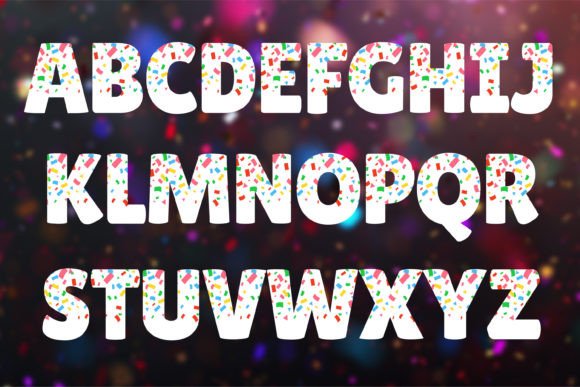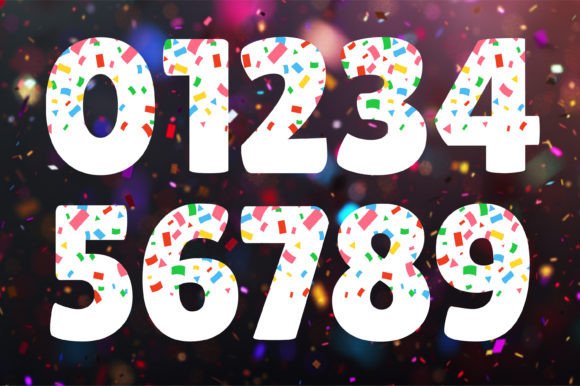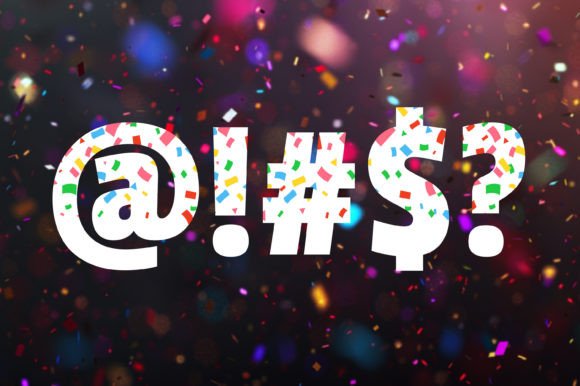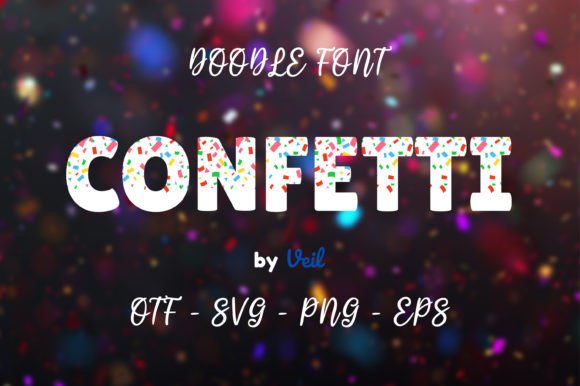
Introducing Confetti Font: Add a Playful Touch to Your Creative Projects
Are you looking for a font that can add a playful or artistic feel to your designs? Look no further than Confetti Font! This cool color font is perfect for designers and crafters who want to create unique and eye-catching projects. In this article, we’ll explore the features and benefits of Confetti Font, and show you how to incorporate it into your creative workflow.
What is Confetti Font?
Confetti Font is a vibrant and colorful font that is designed to evoke a sense of playfulness and creativity. Its unique color scheme and artistic style make it perfect for projects that require a fun and lively touch. Whether you’re designing a birthday card, a party invitation, or a social media graphic, Confetti Font is sure to add a pop of color and personality to your work.
Key Features of Confetti Font
- Multi-color design: Confetti Font features a unique multi-color design that sets it apart from traditional fonts. Each letter and symbol is carefully crafted with a range of colors that blend together to create a fun and playful effect.
- Playful and artistic feel: Confetti Font is designed to convey a sense of playfulness and creativity. Its artistic style makes it perfect for projects that require a touch of whimsy and imagination.
- High-quality design: Confetti Font is designed with high-quality graphics that ensure crisp and clear text, even at small sizes.
- Easily customizable: Confetti Font is easy to customize, allowing you to adjust the colors, size, and style to suit your project’s needs.
Benefits of Using Confetti Font
So why choose Confetti Font for your creative projects? Here are just a few benefits of using this amazing font:
- Adds a playful touch: Confetti Font is perfect for adding a playful touch to your designs. Its fun and colorful design is sure to capture the attention of your audience and leave a lasting impression.
- Perfect for creative projects: Confetti Font is designed specifically for creative projects, making it perfect for designers, crafters, and artists who want to add a unique touch to their work.
- Versatile: Confetti Font is versatile and can be used for a wide range of projects, from party invitations and birthday cards to social media graphics and website headers.
- Easy to use: Confetti Font is easy to use and can be installed on your computer or used online. Its user-friendly design makes it simple to customize and adjust to your project’s needs.
How to Use Confetti Font in Your Creative Projects
Using Confetti Font in your creative projects is easy! Here are a few tips to get you started:
- Choose your project: Choose the project you want to work on, whether it’s a party invitation, a social media graphic, or a website header.
- Type your text: Type your text using Confetti Font, adjusting the size, color, and style to suit your project’s needs.
- Customize and adjust: Customize and adjust your text to fit your project’s design. You can add shapes, images, and other design elements to create a unique and eye-catching effect.
Tips and Tricks for Working with Confetti Font
Here are a few tips and tricks for working with Confetti Font:
- Use it sparingly: Confetti Font is a bold and playful font, so use it sparingly to avoid overwhelming your design. Use it for headings, titles, or key phrases to add a pop of color and personality.
- Pair it with a simple font: Pair Confetti Font with a simple font to create contrast and balance in your design. This will help your text stay readable while still adding a playful touch.
- Experiment with colors: Experiment with different colors and color combinations to create a unique and eye-catching effect. You can also adjust the opacity and transparency of the font to create a subtle or bold effect.
| Font Name | Confetti Font |
| Author | Veil |
Confetti Font is a cool color font that is perfect for designers and crafters who want to add a playful or artistic feel to their creative projects. Its unique multi-color design, playful and artistic style, and high-quality graphics make it a versatile and easy-to-use font that can be used for a wide range of projects. By following the tips and tricks outlined in this article, you can use Confetti Font to create unique and eye-catching designs that capture the attention of your audience and leave a lasting impression.